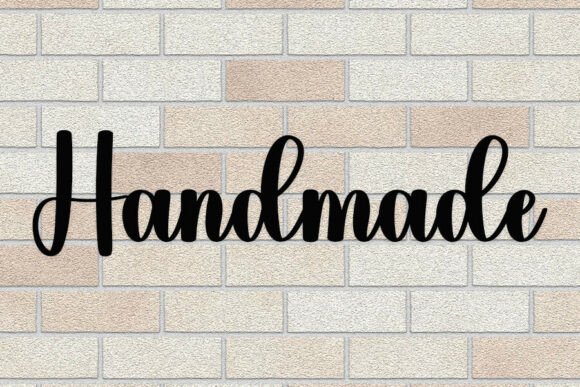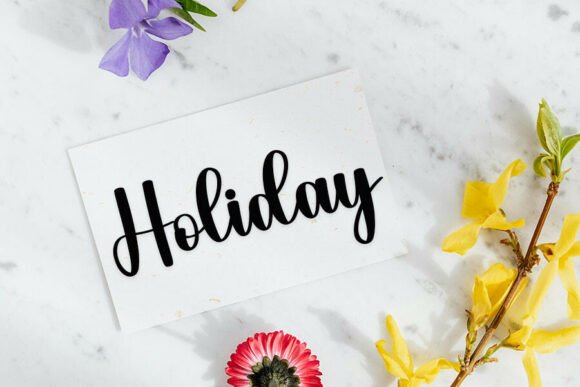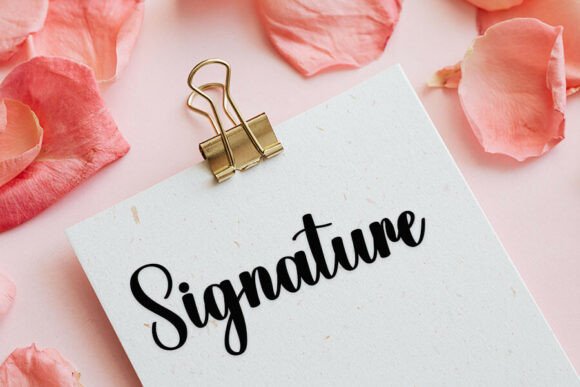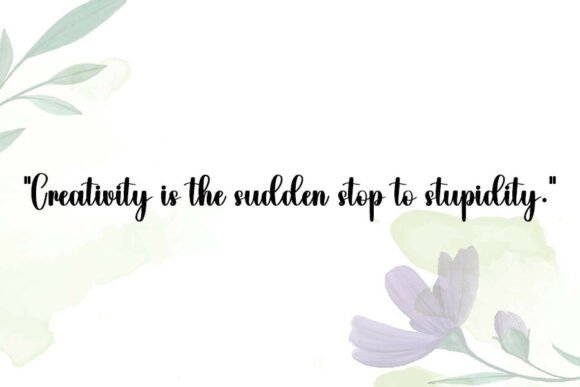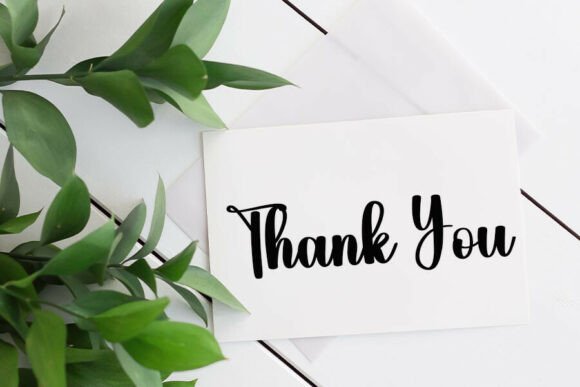
Magical Typography: Discovering the Disney Font
Do you remember the moment when you saw a beautiful hand-drawn font and instantly felt inspired to create something special? Maybe it was on a wedding invitation, a greeting card, or a fashion brand’s logo. Whatever the moment, it’s those magical typography moments that spark our creativity and drive us to create something truly unique. And, for designers, discovering the perfect font can be the key to unlocking a new project’s full potential.
Meet the Disney Font, a sweet and cursive handwritten font that’s perfect for adding a touch of joy and romance to any design. This elegant yet casual font is ideal for branding, logo design, wedding invitations, and any project that requires a sophisticated yet playful feel. With the Disney Font, you’ll be able to add a personal touch to your designs and make them truly unforgettable.
Disney Font Key Features
- Font Family: Disney Font is a proprietary font family designed by Disney, comprising of several styles and weights.
- Unique Characteristics: Disney Font features distinctive rounded shapes, gentle curves, and a friendly, approachable feel, making it ideal for children’s content, entertainment, and family-oriented branding.
- Style Variations: The font family includes various styles, such as bold, italic, and condensed, allowing for versatility in design applications.
Disney Font Review
✨ The Disney Font is a lovely, whimsical script that captures the essence of classic Disney magic. It’s perfect for creating a nostalgic and dreamy atmosphere in your designs. The font is highly legible, even at small sizes, making it ideal for use in titles and headings. The font’s flowing lines and curves add a touch of elegance and sophistication, perfect for luxury brands or special occasions.
- ✨ High legibility, even at small sizes
- ✨ Whimsical and dreamy atmosphere
- ✨ Elegant and sophisticated curves
- ✨ Perfect for luxury brands or special occasions
⚠️ However, there are a few limitations to consider. The font is a bit too ornate for everyday use, and may not be suitable for modern or minimalist designs. Additionally, the font’s uniqueness may make it harder to pair with other fonts, which can limit its versatility.
- ⚠️ May be too ornate for everyday use
- ⚠️ May not be suitable for modern or minimalist designs
- ⚠️ Limited versatility due to unique design
Overall, the Disney Font is a beautiful and enchanting script that’s perfect for special occasions or luxury brands. While it may have some limitations, it’s a great choice for designers looking to add a touch of magic to their designs.
The Disney Font is ideal for creating whimsical and playful designs, such as:
1. Children’s party invitations and decorations.
2. Branding and marketing materials for family-friendly businesses.
3. Personal projects that require a touch of nostalgia and magic.
Tips for getting the most out of the Disney Font include:
1. Using it in combination with other playful fonts and graphics.
2. Experimenting with different font sizes and colors to create visual interest.
3. Pairing it with bold and bright colors to create a lively atmosphere.
What is the technical specification of the Disney Font?
The Disney Font is available in various font weights, including Light, Regular, and Bold. The font supports a wide range of languages, including English, Spanish, French, and many others. The font metrics are designed for use at various sizes, from 8 points to 48 points, with optimal legibility at 12 points and above.